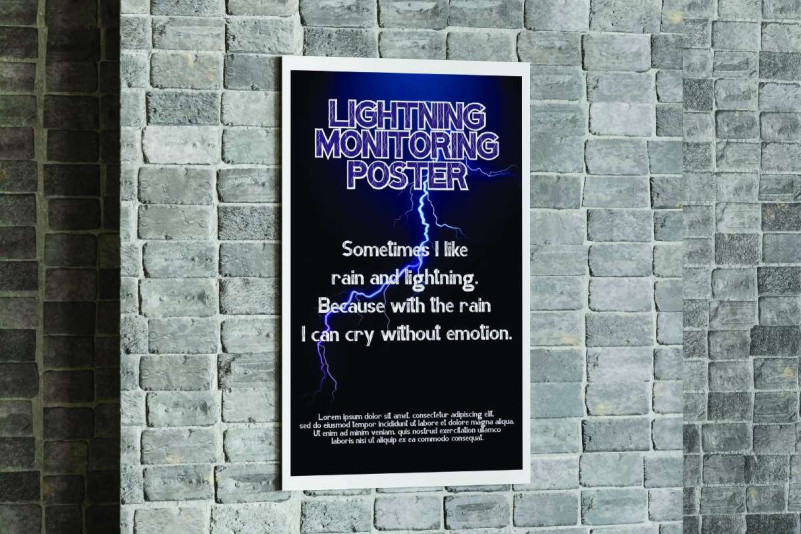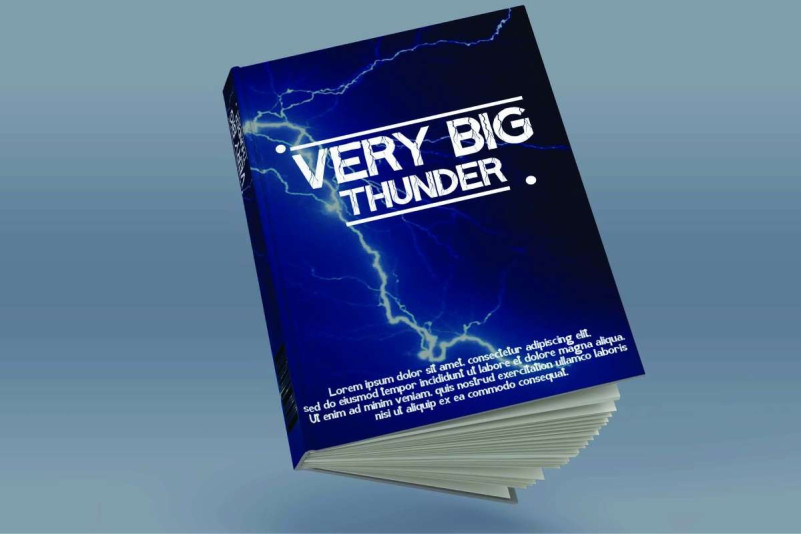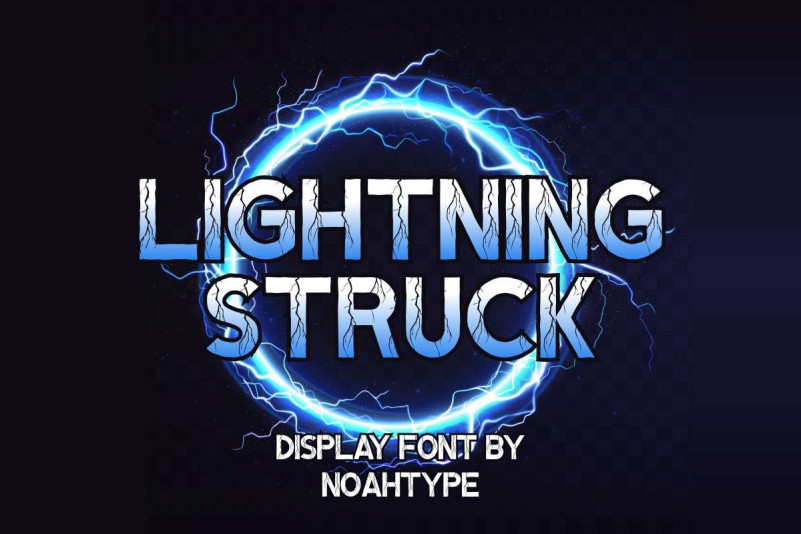
Lightning Struck Font
Lightning Struck Display Font is a decorative display font inspired from thunder and lightning. This font has lightning in every character that will make your designs look more attractive. It would be perfect for many industries, such as advertising, animation/film, café, clothing brand, festival event, handicrafts, music, printing, publishing, and more!
Lightning Struck Font includes full set of Uppercase and Lowercase Basic Characters, Numerals and Punctuation. This font will be a perfect choice for your designs, such as cover, frame art, label, poster, quote, product packaging, screen printing, signage, website, etc.